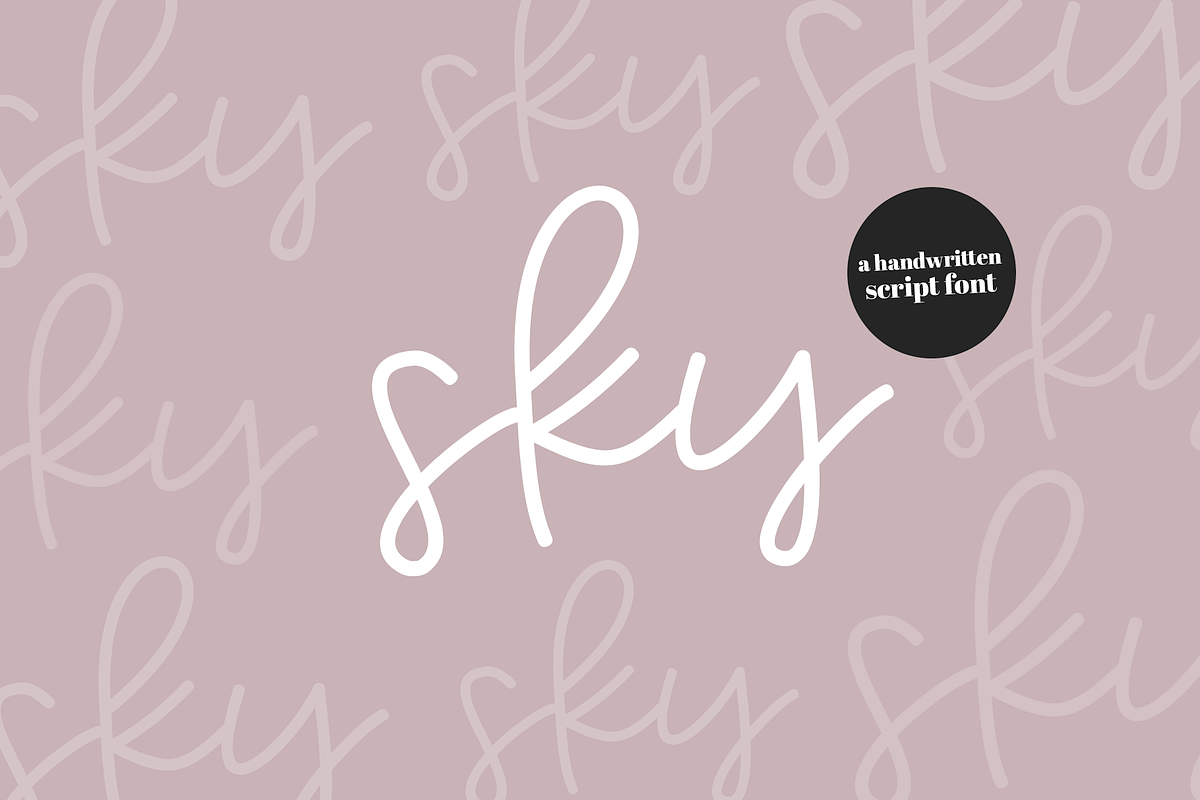
Sky - A Pretty Script Font Free Download
Sky - A Pretty Script Font Free Download is a delicate and elegant handwritten script typeface designed to add a touch of grace and beauty to your designs. Featuring smooth, flowing lines and soft curves, Sky is perfect for wedding invitations, branding, logos, social media posts, and greeting cards that need a personal and sophisticated touch.
With its charming style and beautiful letterforms, Sky can be used for both formal and casual designs, offering versatility and personality in any project. Whether you're crafting a romantic design or a modern logo, this font brings a sense of elegance and warmth.